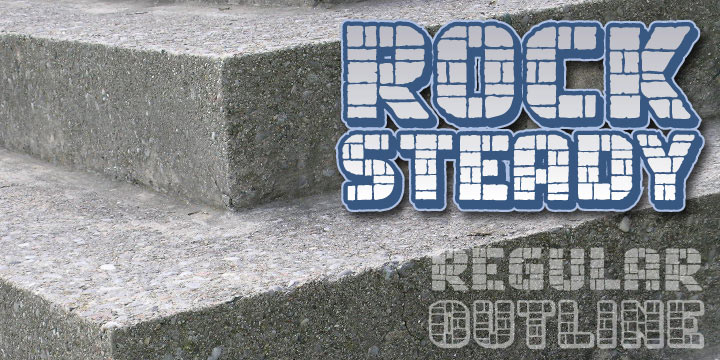
Rock Steady BB Font is perfect for music venues, rock band logos, concert posters, reggae festivals, ska band branding, Jamaican restaurants, music festivals, vinyl record covers, and rhythmic music communications. This groovy typeface brings musical rhythm and rock steady energy to projects requiring beat-driven typography with authentic musical appeal and Caribbean-inspired character.
What makes Rock Steady BB Font exciting is its rhythmic groove that captures the infectious beat of rock steady music and Jamaican musical heritage with remarkable soul and authentic rhythm that makes viewers feel the music's pulse. The font features steady letterforms with musical rhythm and Caribbean character that reflects the cultural richness of reggae traditions and the uplifting spirit of Jamaican music culture. Its soulful personality and rhythmic nature make it irresistible for music brands seeking typography that communicates authentic groove while celebrating the timeless appeal of Caribbean musical heritage and rock steady rhythms.
The Rock Steady BB Font family includes rhythmic weights and musical styles: Light, Regular, Medium, Bold, and groove variations with reggae alternates and musical symbols. Each weight maintains the font's steady character while offering designers creative flexibility for music branding and Caribbean design applications requiring authentic musical atmosphere and rhythmic visual presentation.
Whether you're designing for music venues or Caribbean restaurants, Rock Steady BB Font Free Download provides designers with a groovy, music-focused typeface solution. The font's rhythmic aesthetics and musical styling make it ideal for reggae bands, music festivals, Caribbean venues, and entertainment companies. Its soulful presence ensures your message communicates musical authenticity and Caribbean spirit while maintaining excellent rhythmic readability. The comprehensive character set includes musical symbols and Caribbean decorations, making it perfect for creating memorable headlines and brand identities that celebrate musical heritage and establish meaningful connections with audiences seeking authentic reggae experiences and Caribbean cultural celebrations.